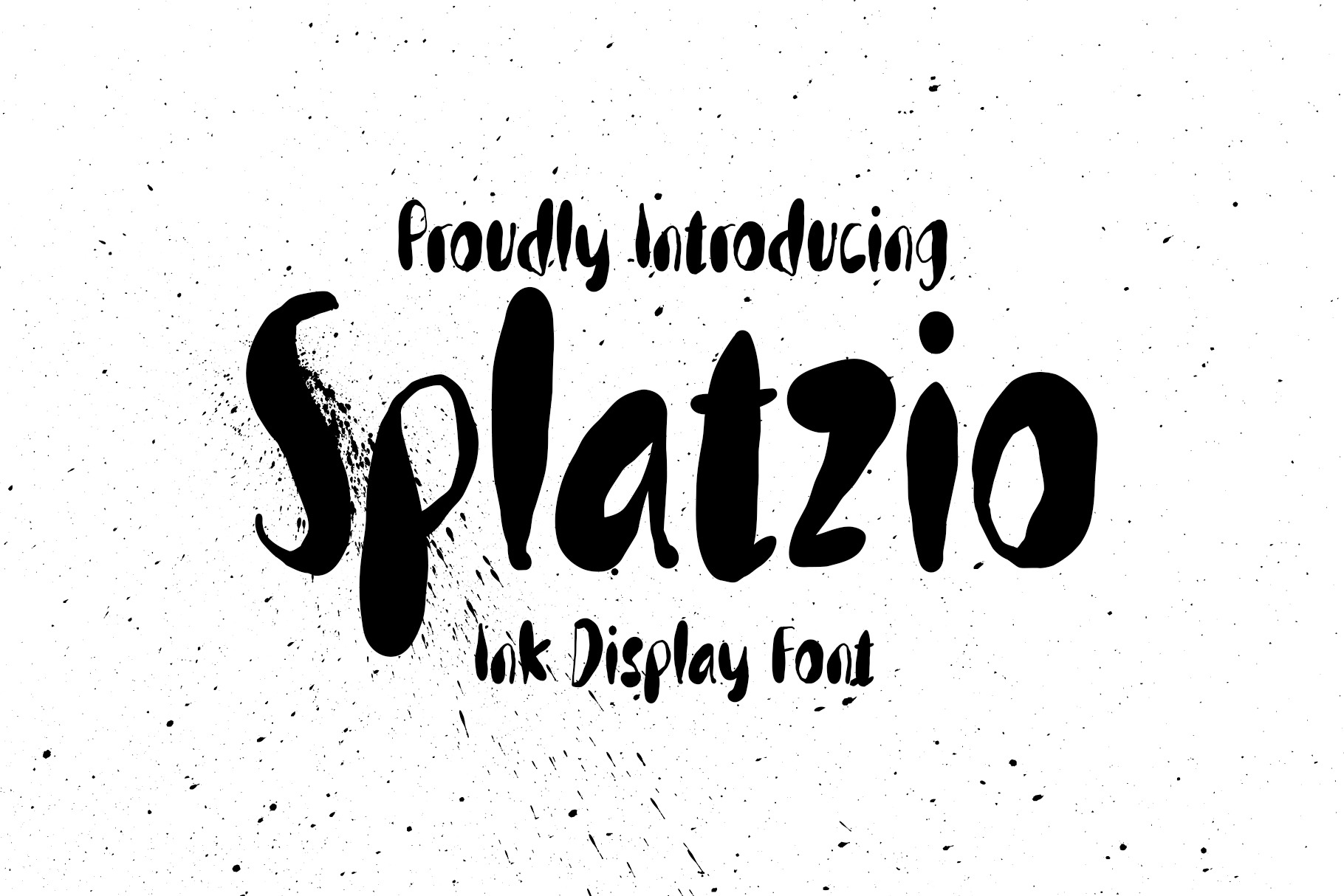
Splatzio Ink Display Font
Splatzio is a display font inspired by ink and splatter effects, creating a unique and expressive look. With its bold design that embodies creativity, this font is suitable for design projects that require attention-grabbing and daring visuals.
The history behind the creation of this font began with our desire to represent the beauty and dynamics of ink splatters. We were inspired by the art of ink splattering, where ink is applied to surfaces with various movements and intensities, resulting in captivating and unpredictable patterns. We wanted to capture the essence of artistic irregularity found in ink splatters and transform it into a font that can be used in creative designs.
Splatzio is designed with bold ink strokes and diverse splatters, creating an expressive and attention-stealing look. Every letter and character in this font is filled with artistic elements that reflect the uniqueness of ink splatters. The font gives the impression that the letters are created spontaneously and dynamically, as if crafted with free-hand movements.
The Splatzio font is highly suitable for design projects that aim to showcase creativity, boldness, and a distinct appearance. It can add a unique touch to poster designs, headlines, logos, or other design projects that require a striking look. With the Splatzio font, you can express creative freedom and capture attention through your designs.
So, with the Splatzio font, you can bring expressive and eye-catching ink splatter effects into your designs. Discover creativity and boldness in your designs with the Splatzio font.